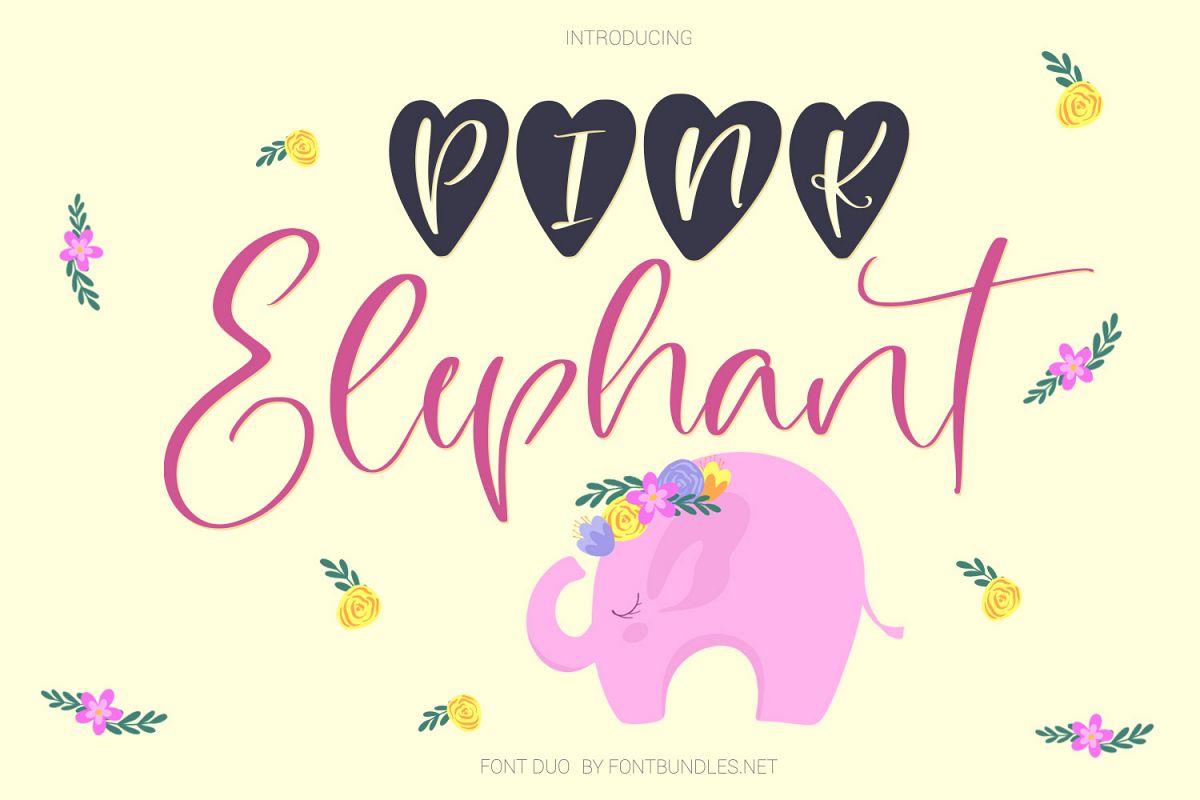
Pink Elephant Font Duo - it's a new cute font duo Pink Elephant.otf - standart and alternate uppercase, lowercase, numbers, punctuation and ligature Pink Elephant St.ttf - standart uppercase, lowercase, numbers, punctuation Pink Elephant Al.ttf - alternate uppercase and lowercase Pink Elephant Hearts.otf - uppercase, lowercase, numbers, punctuation and ligature. Pink Elephant Hearts.ttf - uppercase, lowercase, numbers, punctuation and ligature